32 Vintage Canva Fonts
Looking to add a classic touch to your project? Then all you need to do is add some vintage fonts to it.
Canva offers more than a hundred vintage-style fonts. You can use these fonts for presentation, personal notes, or even branding materials. But with so many great fonts, it can be hard to find the fonts that pair well with your overall designs.
To help you out, in this article, I will share 32 vintage Canva fonts. These fonts are elegant and stunning and can be paired with bold and header fonts.
Take a look at the list!
32 Vintage Canva Fonts
1. Vintage Goods:
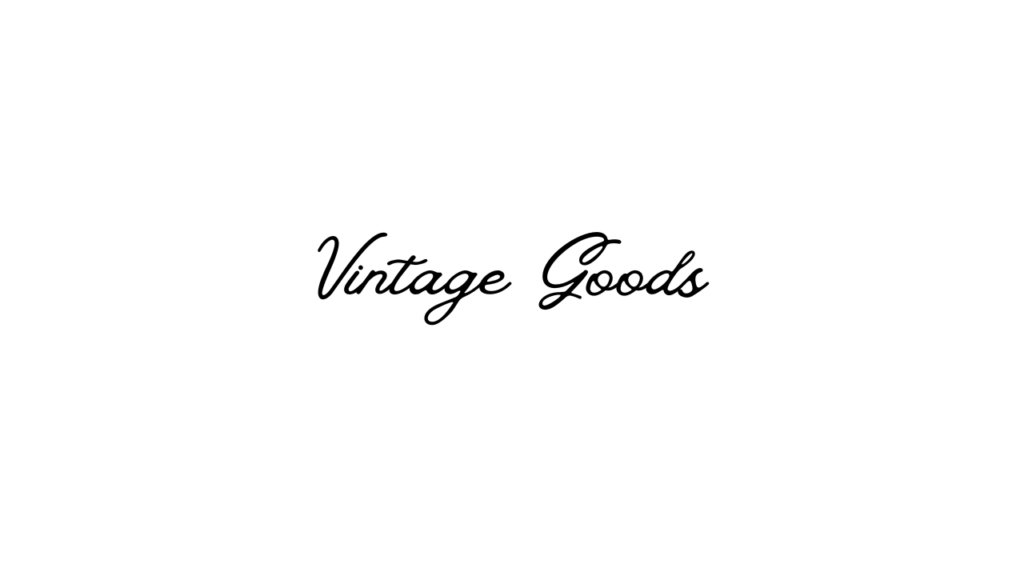
2. Vintage Rotter:
3. Brixton:
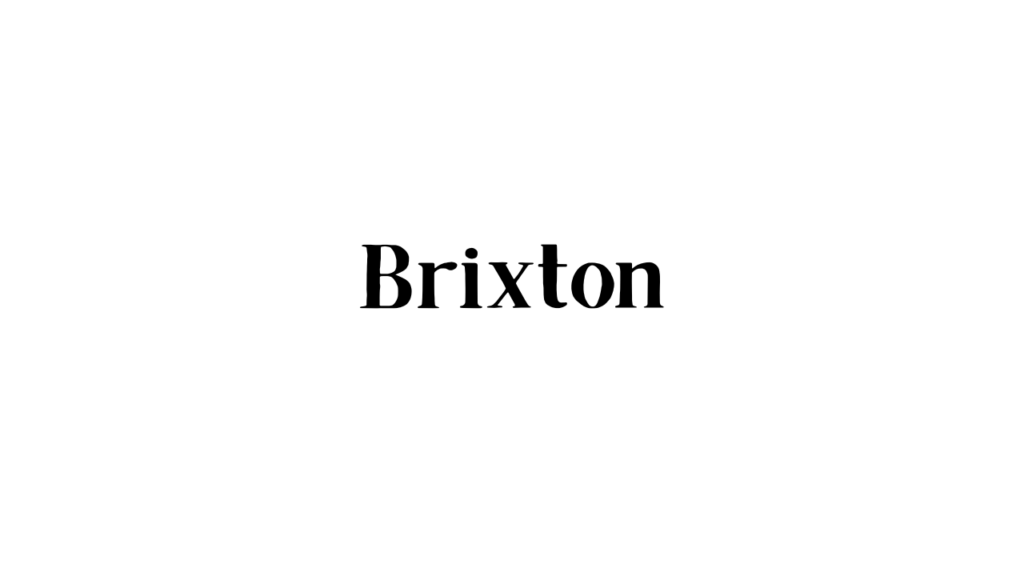
4. Rugrats:
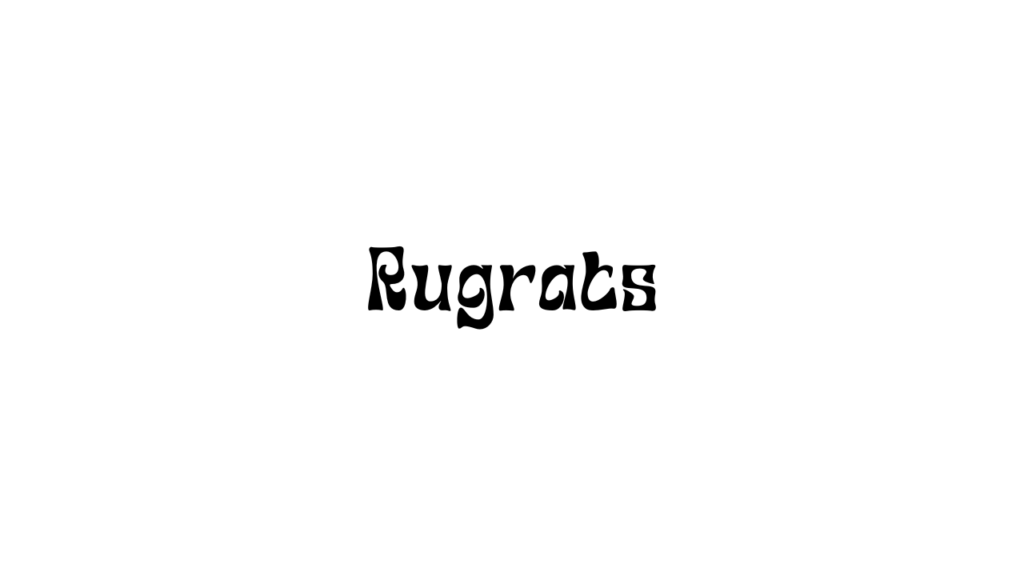
5. Germania One:
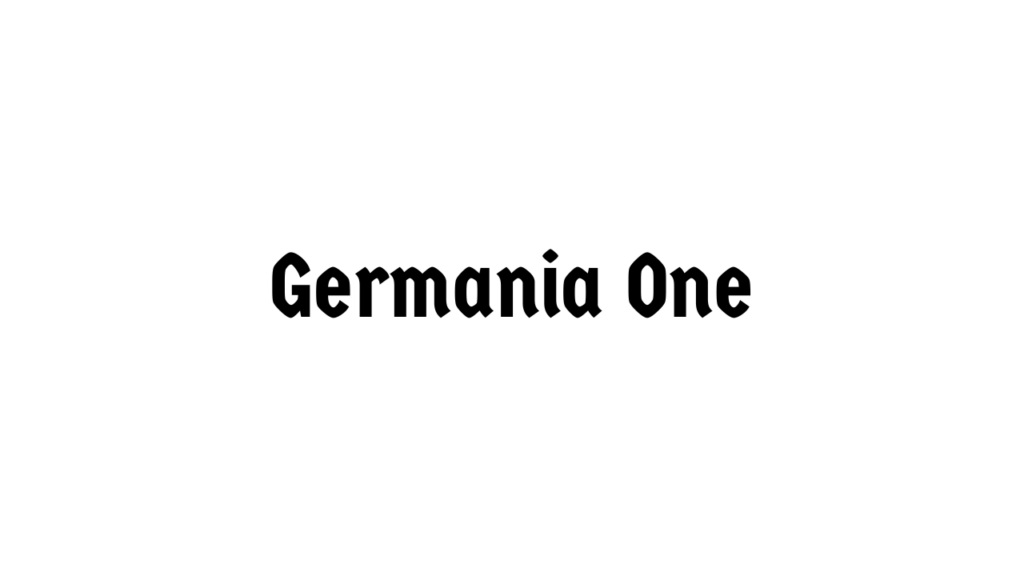
6. Zenaida:
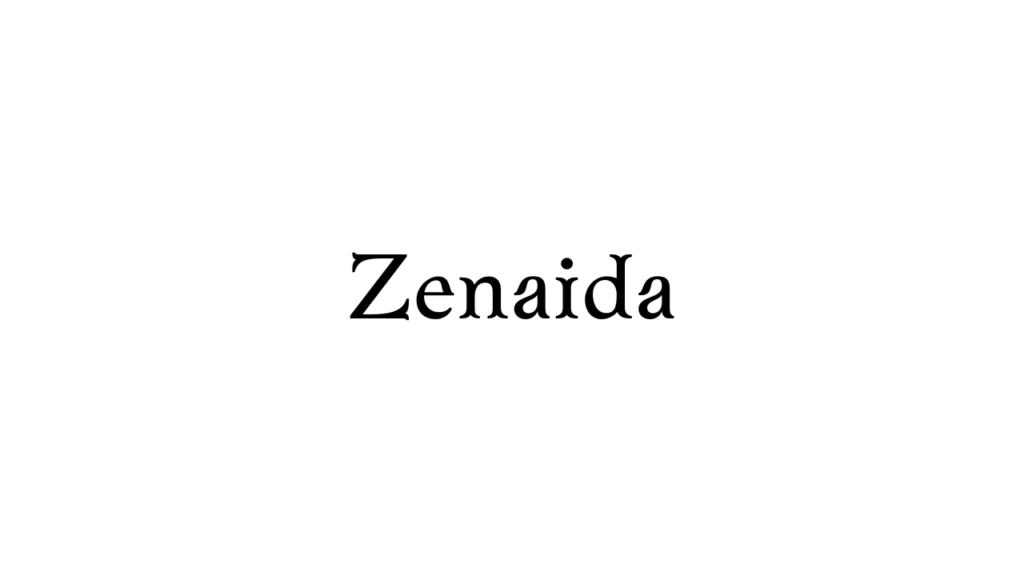
7. Amaranth:
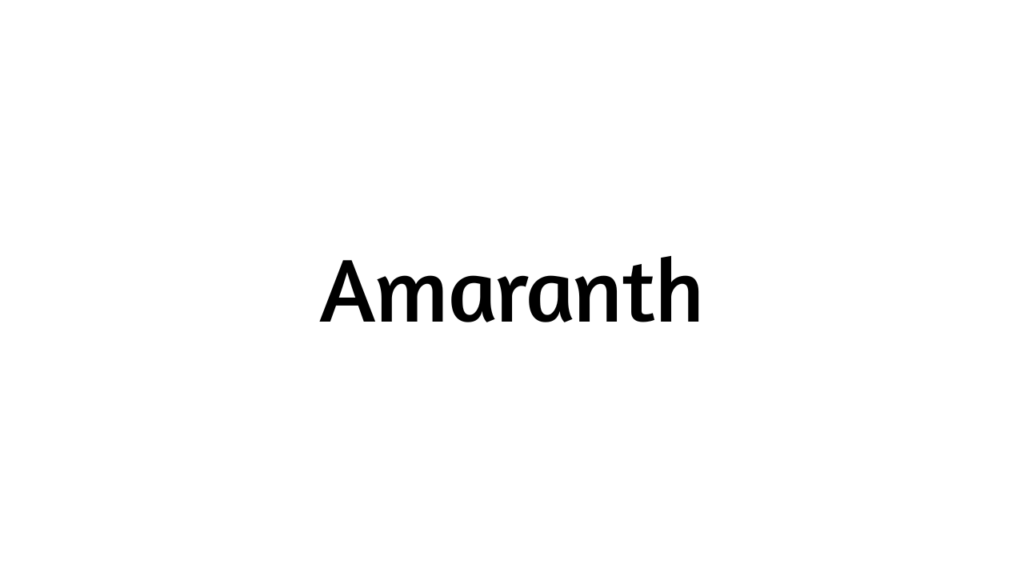
8. Gatwick:
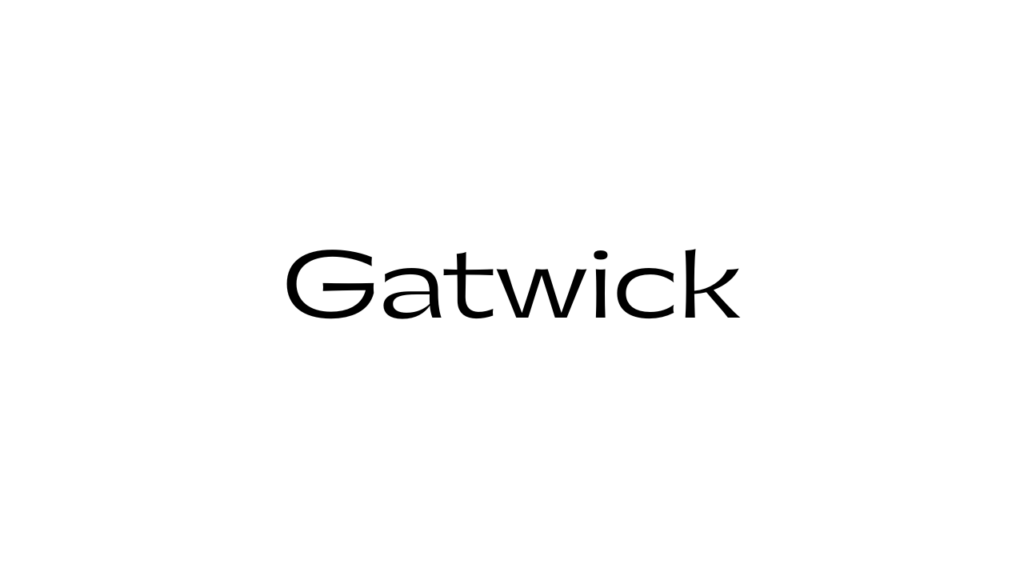
9. Libre Baskerville:
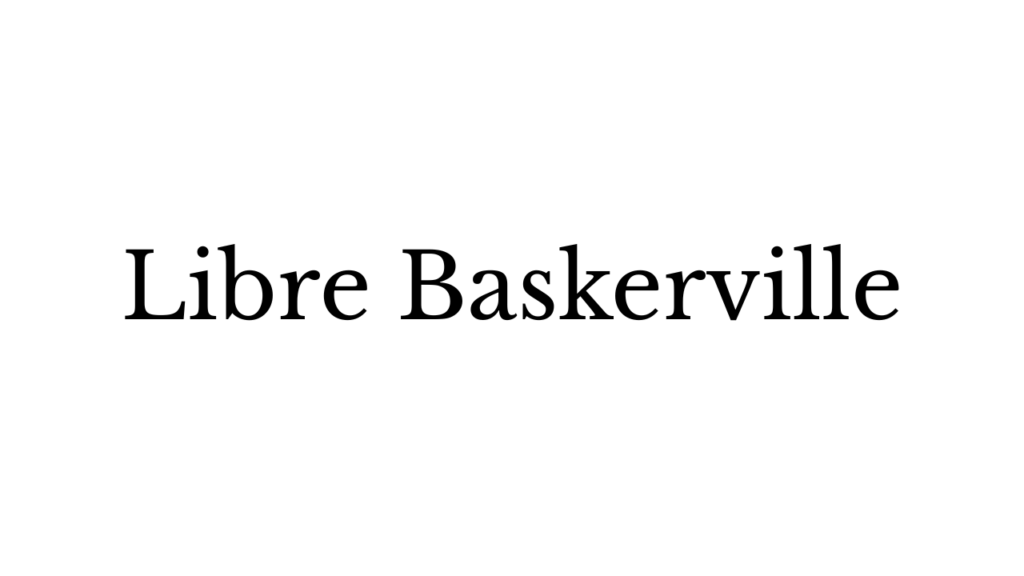
10. Glass Antiqua:
11. Limelight:
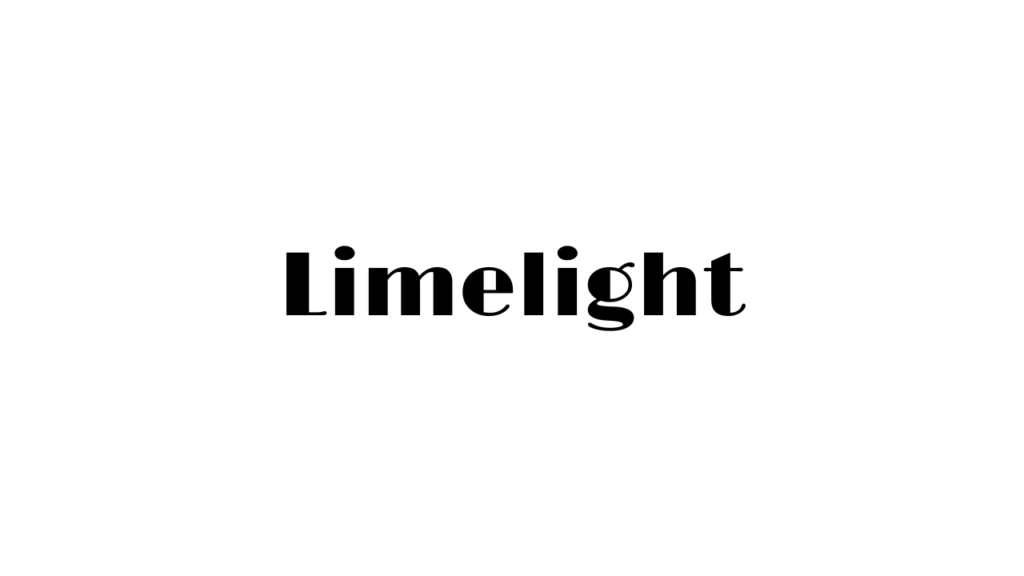
12. Coustard:
13. Trocchi:
14. Hatton:
15. Niconne:
16. Cinzel:
17. Oregano:
18. Kuchek:
19. Pompiere:
20. Jorick:
21. Cagliostro:
22. Maiden Orange:
23. Anaktoria:
24. Galada:
25. Agrandir:
26. Cinzel Decorative:
27. Alex Brush:
28. Belina:
29. Romman:
30. Fontuna:
31. Bellefair:
32. JS Chanok:
Conclusion